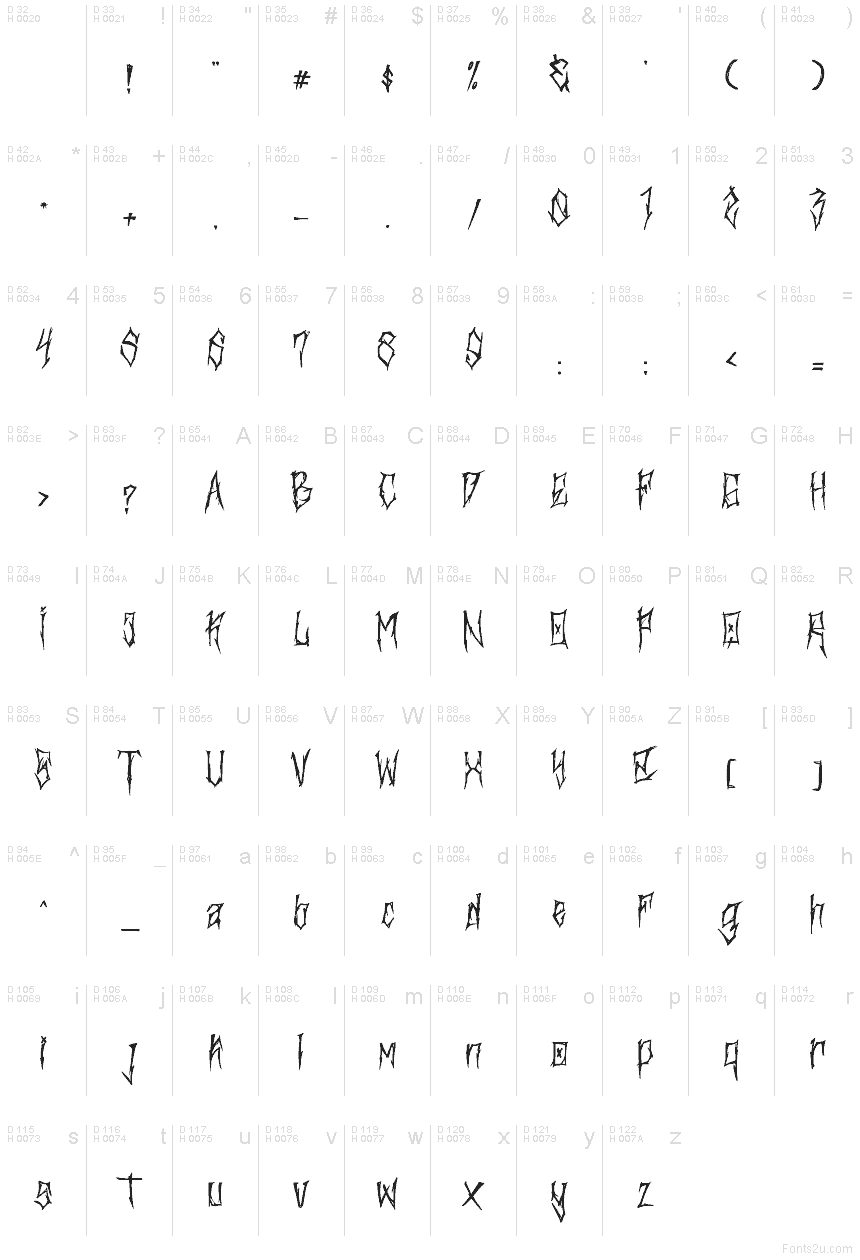
Durhaka font by Kincrev Studio is a free Halloween display font. Its letters look carved from thorny branches-jagged, scratchy, and tall with splintered edges that feel hand-slashed. The rhythm is irregular enough to unsettle, yet tight enough to read at a glance, giving you instant eerie mood without losing clarity.
Using Durhaka, your titles snap to life on haunted house posters, spooky party invites, horror movie art, game splash screens, escape-room branding, and seasonal social promos. This free font loves big sizes where the spiky texture can breathe; keep body copy in a clean sans and let Durhaka handle the screams. Pair it with a simple geometric sans and generous spacing for a sharp, cinematic contrast.